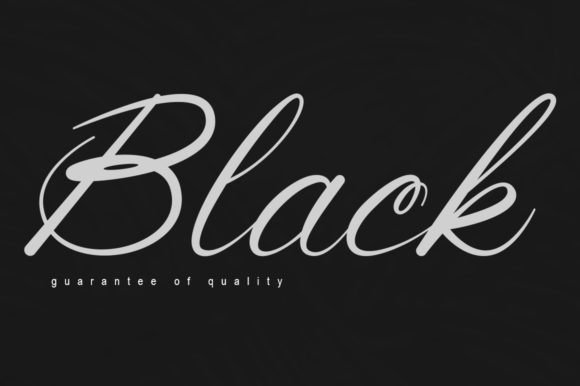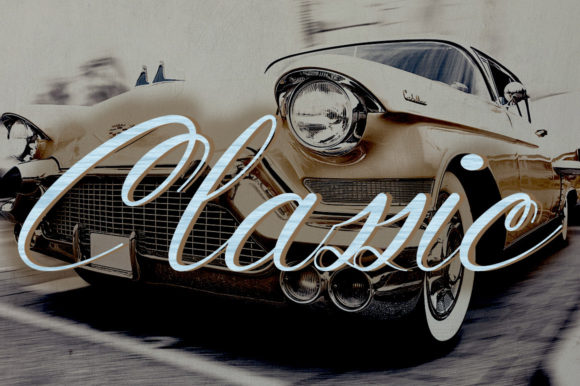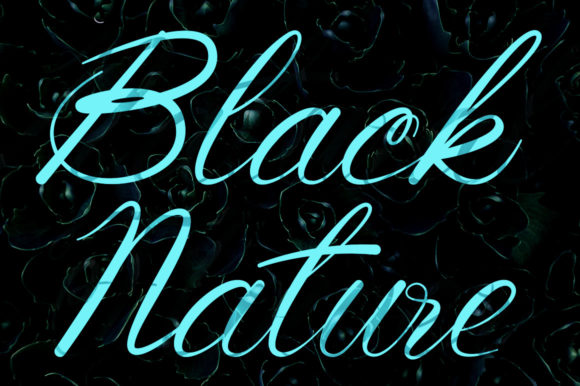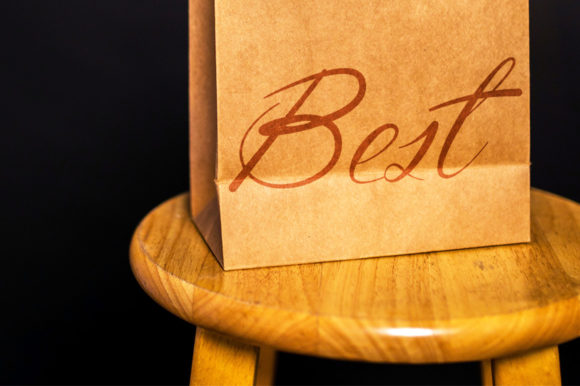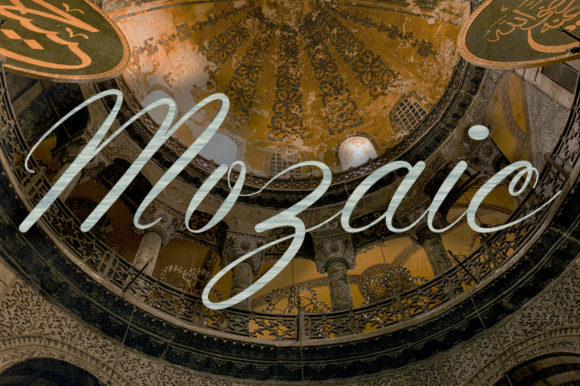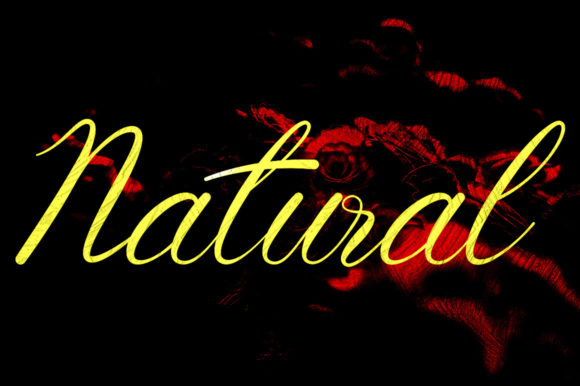
The Quest for the Perfect Font: Discovering Gabriel
I still remember the frustration of working on a project, hours spent crafting the perfect design, only to have it fall flat because of one crucial element: the font. My client wanted something elegant, yet modern; something that would make their brand stand out. I scoured the internet, tried countless fonts, but none seemed to fit the bill. That was until I stumbled upon Gabriel, an exquisite handwritten font that quickly became my go-to. In this article, I’ll share my journey with Gabriel, its features, and how to make the most of it in your designs.
A First Impression: What Makes Gabriel Special
Gabriel is more than just a font; it’s a statement piece. Masterfully designed with classy calligraphic influences, it feels both contemporary and fresh. The attention to detail is evident in its PUA encoding, allowing easy access to all glyphs and swashes. This feature alone makes it a favorite among designers and crafters alike.
What I Love About Gabriel
- ✨ Elegant and modern feel, perfect for high-end projects
- 💫 Highly versatile, suitable for a wide range of design projects
- 🎨 Beautifully crafted with attention to detail
While Gabriel is an outstanding font, there are a few minor considerations:
- 🤔 Some users might find the learning curve for accessing glyphs and swashes a bit steep, especially if they’re new to OpenType features.
- ⚠️ As with any script font, readability at very small sizes might be a concern.
The Story Behind Gabriel
While the actual origins of Gabriel might be shrouded in mystery, it’s easy to imagine a designer, passionate about calligraphy and modern typography, crafting it with love. Perhaps they wanted to create a font that would bring a touch of elegance to any project, from wedding invitations to brand identities. Whatever the inspiration, Gabriel’s beauty and versatility are undeniable.
Q: What makes Gabriel a good choice for branding projects?
A: Gabriel’s elegant and modern feel makes it perfect for brands looking to convey sophistication and class.
Q: Is Gabriel difficult to read at small sizes?
A: As with many script fonts, Gabriel’s readability at very small sizes might be a concern. It’s best used at larger sizes where its details can shine.